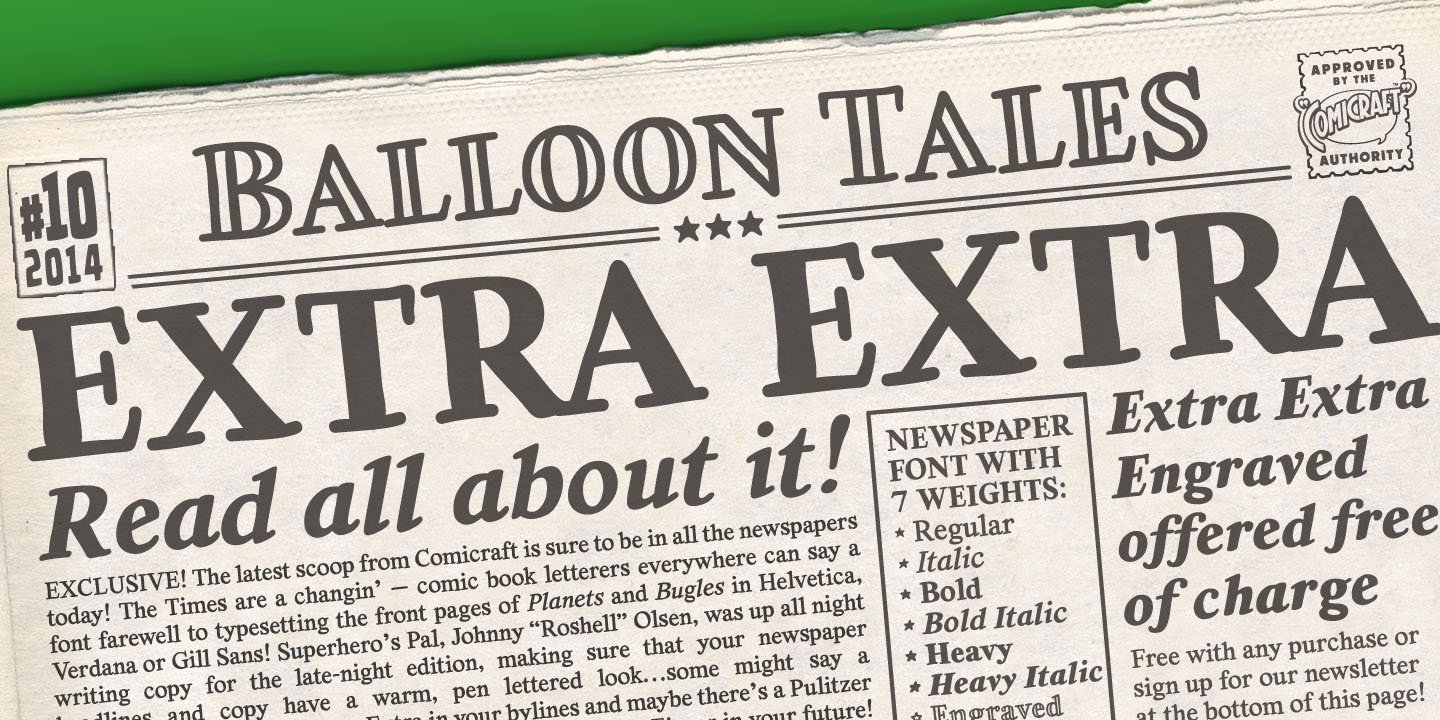
Extra Extra Font is perfect for newspaper headline designs, breaking news graphics, vintage journalism materials, press release layouts, media outlet branding, newsroom signage, editorial magazine covers, urgent announcement displays, news broadcast graphics, journalistic publication headers, and any project that requires bold headline character with urgent news communication appeal.
What makes Extra Extra Font exciting is its powerful ability to command immediate attention and convey breaking news urgency through bold, attention-grabbing letterforms that capture the excitement and authority of front-page journalism and headline news reporting. This commanding typeface features newspaper-inspired characteristics with urgent proportions that convey credibility, immediacy, and journalistic professionalism. The font's news character adds instant media credibility and headline appeal to any design, making it perfect for organizations requiring authoritative news communication and urgent message delivery.
Extra Extra Font comes in multiple font families including Regular, Bold, Heavy, Condensed, Extended, and Newsprint variations, offering designers comprehensive options to create journalistic compositions and achieve the perfect newspaper aesthetic for media-focused design projects.
Whether you're developing news media branding, creating journalistic publication materials, or designing urgent communication campaigns, Extra Extra Font Free Download provides the ideal solution for projects demanding authentic headline character and news media sophistication. This bold typeface excels in display applications where urgent presence is essential, ensuring your designs communicate journalistic authority and breaking news immediacy. The commanding character and news styling of Extra Extra Font make it an indispensable tool for designers who prioritize news media, journalistic communication, and urgent headline aesthetics in their typographic selections.